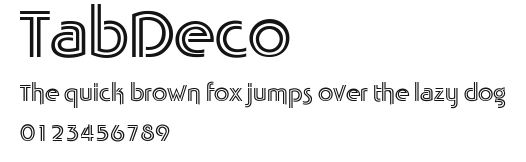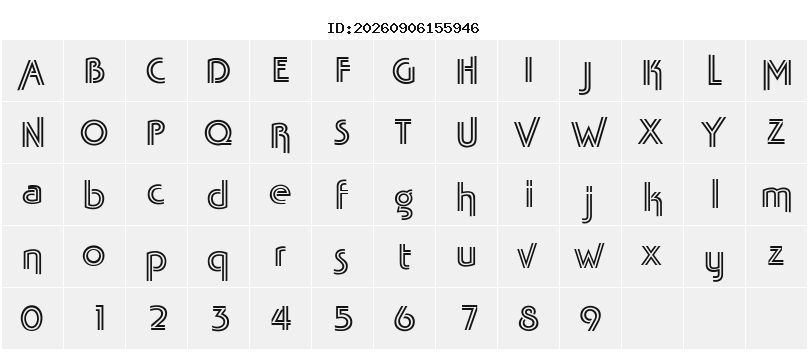
• Font Name: TabDeco
• Full Font Name: TabDeco
• PostScript Name: Deco-T652-Twin
About TabDeco.ttf
TabDeco.ttf is a modern, elegant sans-serif font designed for ultimate readability and visual harmony. Perfect for branding, headlines, web design, and print materials.